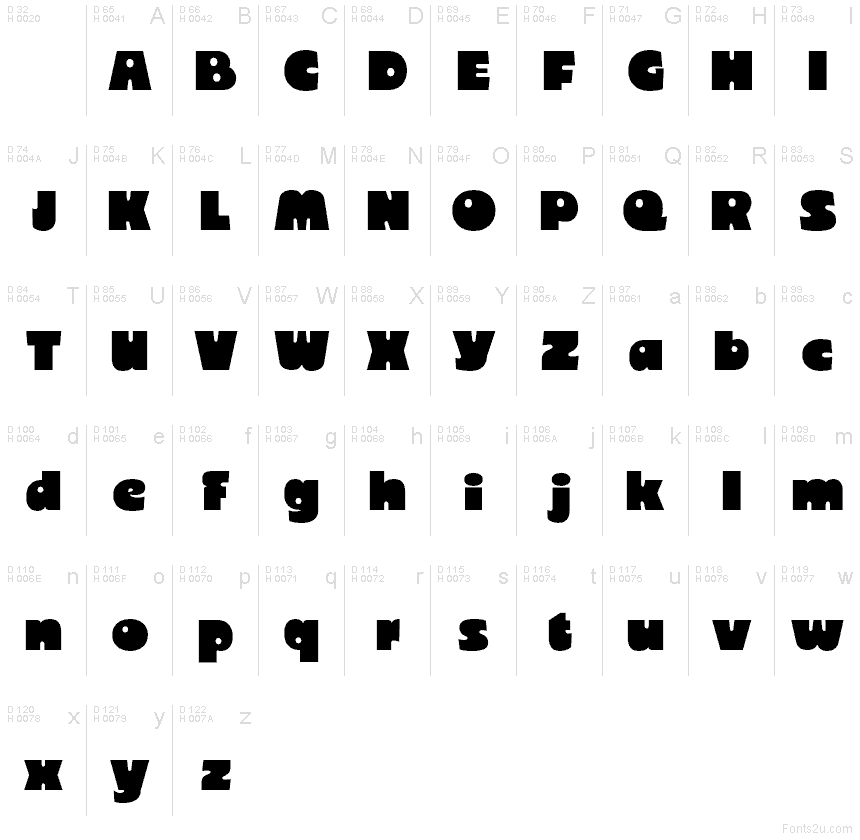
CS Modena Regular Demo
CS Modena font by Craft Supply Co. is a free bold comic display font. It stands out with plush, rounded silhouettes and tiny “pinhole” counters that feel like winks inside each letter. The strokes are thick and chewy, with soft edges that keep the mass friendly rather than heavy—great when you want impact without sharpness.
This free font shines on snack packaging, kids’ posters, festival merch, game titles, stickers, and playful brand marks. CS Modena’s tight rhythm and pillowy forms read loud at large sizes while staying approachable up close. Pair it with a light geometric sans for body copy, and let CS Modena handle headlines at oversized scale.